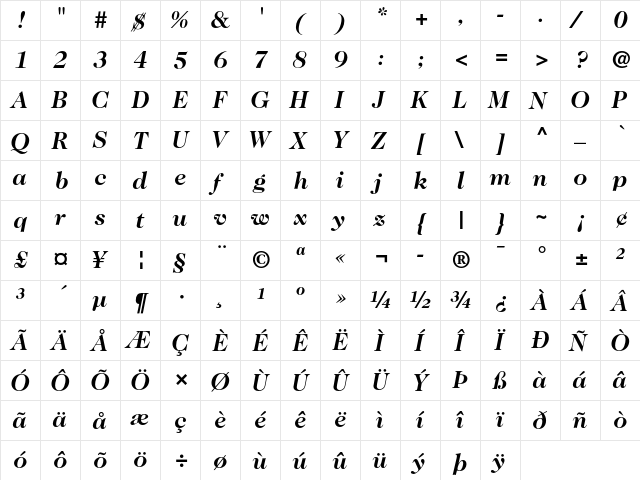
ITC Caslon 224 Bold Italic Font Preview
Design Context for ITC Caslon 224 Typeface
ITC Caslon 224 offers clean, dependable letterforms without strong stylistic allegiance, making it a practical choice for designers who need flexibility. Its italic angle brings a sense of urgency and motion to the letterforms. Its bold stroke weight gives it real presence on the page.
Pro Tip: Try ITC Caslon 224 for annotation and caption copy alongside an upright companion — the contrast in angle creates a dynamic but ordered typographic system.